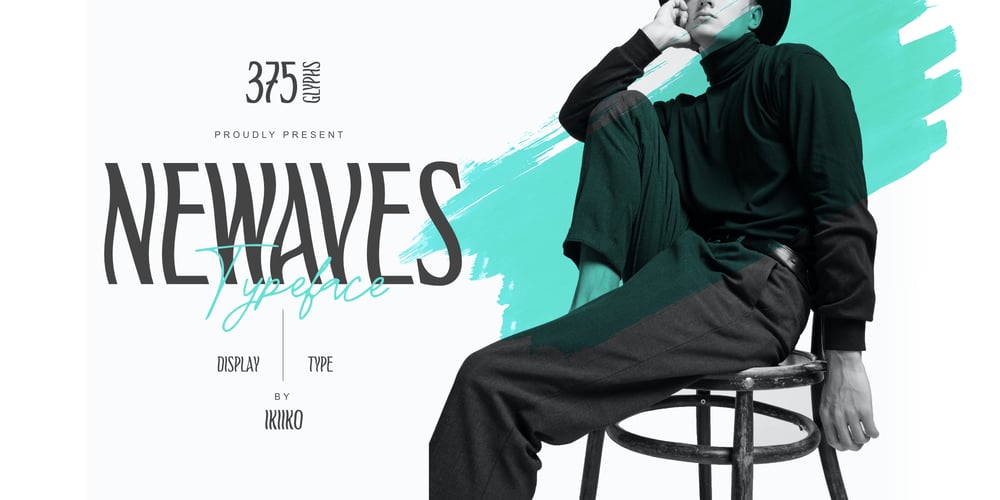
Newaves Font Family was designed by Wahyu Eka Prasetya, Andhika Pradana and published by IKIIKOWRK. Newaves contains 1 styles and family package options. Introducing Newaves – Display Type, created by ikiiko.Is a display type that have a unique wavy shape. Newaves is a neat & luxury sans serif typeface. This typeface is perfect for an elegant logo, luxury fashion brand, magazine layout for header or headline, beauty product, packaging product, quotes, or simply as a stylish text overlay to any background image.What’s included? Uppercase & Lowercase Number & Punctuation Multilingual Support Works on PC & Mac Enjoy our font and if you have any questions, you can contact us by email : ikiikowrk@gmail.com